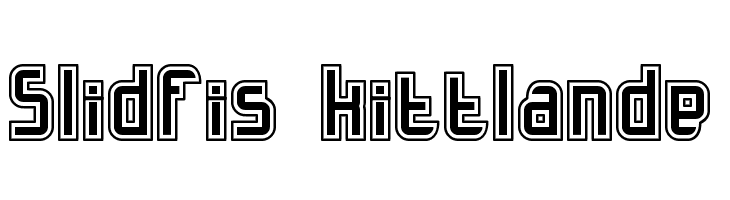
A bold, geometric font with a double-line outline for a modern, futuristic look.
A bold, geometric outline font with a modern, three-dimensional appearance.